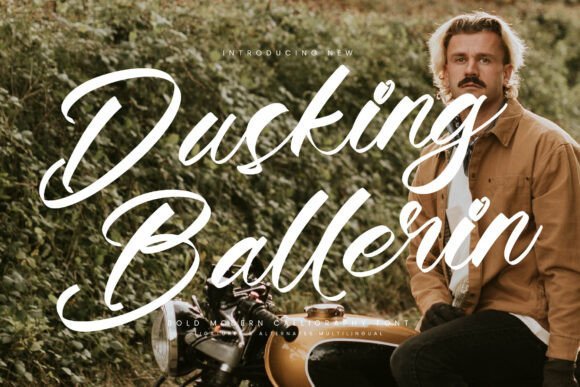
The Art of Elegance: Unveiling the Dusking Ballerin Font
As a designer, there’s nothing quite like the thrill of staring at a blank canvas, waiting for inspiration to strike. It’s that moment when creativity flows freely, and the world of possibilities unfolds before your eyes. And then, it hits you – the perfect font to elevate your design to new heights. For those seeking a touch of sophistication and luxury, the Dusking Ballerin Font from Integritype Studio is the ultimate game-changer.
This stunning modern calligraphy font is designed to add a premium feel to any project, from logos and branding to homewares designs and product packaging. Its versatility and elegance make it an invaluable asset for designers, allowing them to create stunning visuals that leave a lasting impression.
Dusking Ballerin Font Key Features
- Unique Characteristics: Elegant, whimsical design with a touch of sophistication, ideal for creative and artistic projects
Dusking Ballerin Font Review
Overall, I have mixed feelings about the Dusking Ballerin font. While it has some great qualities, there are also some limitations that make it less than ideal for certain projects.
- Unique aesthetic: The Dusking Ballerin font has a distinct, elegant look that can add a touch of sophistication to designs.
- Good for headings: The font is well-suited for headings and titles, where its bold lines and subtle curves can create a strong visual impact.
- Legibility: The font is generally easy to read, even at smaller sizes.
- Thin lines: Some of the lines in the font can be quite thin, which may make them difficult to read in certain contexts, such as in low-resolution images or when used in small sizes.
- Lack of versatility: The font may not be suitable for large blocks of text, as it can become overwhelming and difficult to read.
- Not ideal for body text: While the font is great for headings and titles, it may not be the best choice for body text, where a more legible and neutral font is usually preferred.
In conclusion, the Dusking Ballerin font is a great choice for designers looking to add a touch of elegance to their projects, but it may not be suitable for all types of designs. Its limitations should be carefully considered before using it for large blocks of text or in situations where readability is a top priority.
To get the most out of the Dusking Ballerin Font, try pairing it with other elegant fonts, such as serif or script fonts. Use it for titles, headings, and other emphasis text to add a touch of sophistication to your designs.
The Dusking Ballerin Font is ideal for:
- Formal event promotions and announcements
- High-end branding and marketing materials
- Book covers and literary projects
Alternatives to Dusking Ballerin Font
Pacifico is a beautiful, elegant, and modern script font. It’s perfect for designing invitations, wedding cards, and other romantic occasions. This font has a similar feel to Dusking Ballerin Font, but with a more relaxed and casual tone.
Comparison: Pacifico has a more rounded and flowing feel compared to Dusking Ballerin Font, which has a more delicate and refined look.
Great Vibes is a beautiful and elegant script font with a vintage feel. It’s perfect for designing posters, advertisements, and other promotional materials. This font has a similar sense of sophistication to Dusking Ballerin Font, but with a more playful and energetic vibe.
Comparison: Great Vibes has a more dynamic and expressive feel compared to Dusking Ballerin Font, which has a more subtle and refined look.
Carolyna Pro is a modern and elegant script font with a luxurious feel. It’s perfect for designing high-end products, such as luxury brands and fashion magazines. This font has a similar sense of sophistication to Dusking Ballerin Font, but with a more modern and edgy tone.